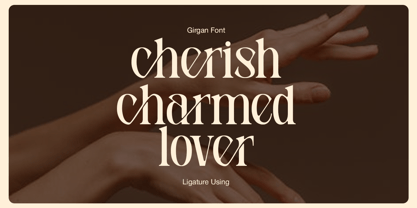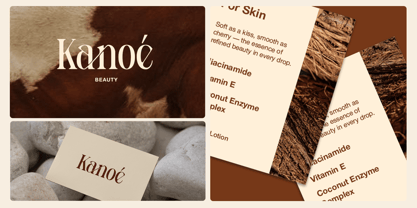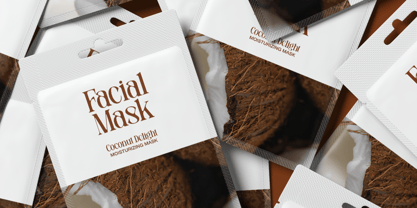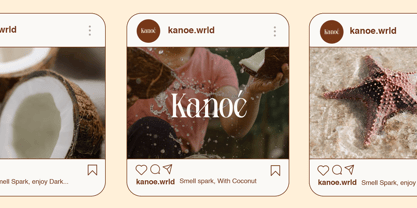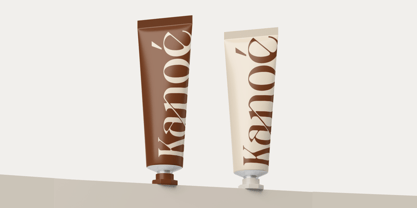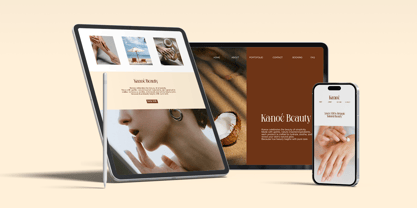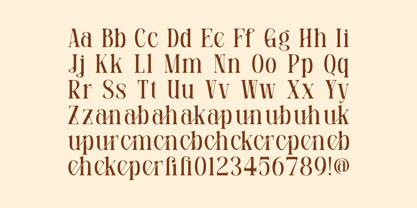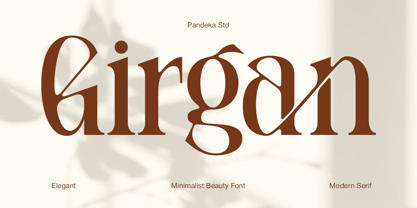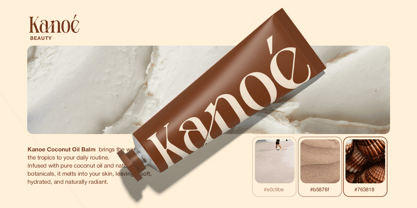
Girgan
by Pandeka Studio
The Girgan Font Family was designed by Sagara Nararya and published by Pandeka Studio. Girgan contains 1 styles. More about this family
Girgan is a minimal and elegant serif font designed to reflect natural beauty and modern sophistication. With graceful curves and refined letterforms, it brings a soft yet confident character that suits beauty brands, editorial design, packaging, and lifestyle projects.
This font comes in 1 style: Regular, featuring uppercase, lowercase, numerals, punctuation, and 26+ beautiful ligatures for stylish and organic typography. Perfect for creating timeless logos, magazines, cosmetics branding, and elegant visual identities.
• 1 Style: Regular
• Full Character Set: Uppercase, lowercase, numbers, symbols, and punctuation
• 26+ Elegant Ligature
Designers: Sagara Nararya
Foundry: Pandeka Studio